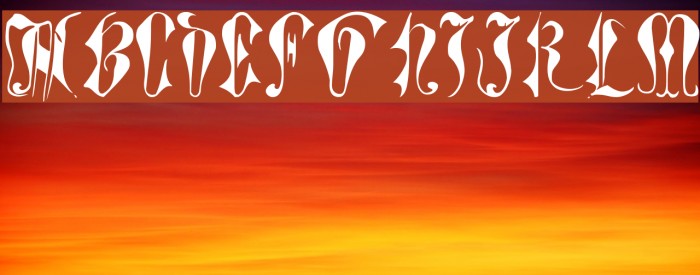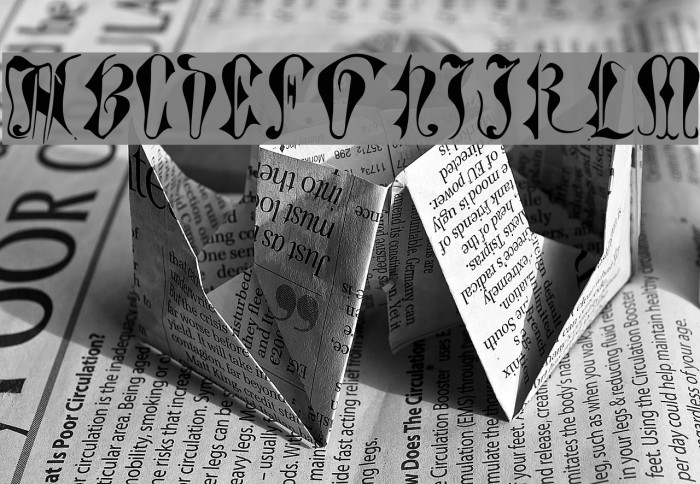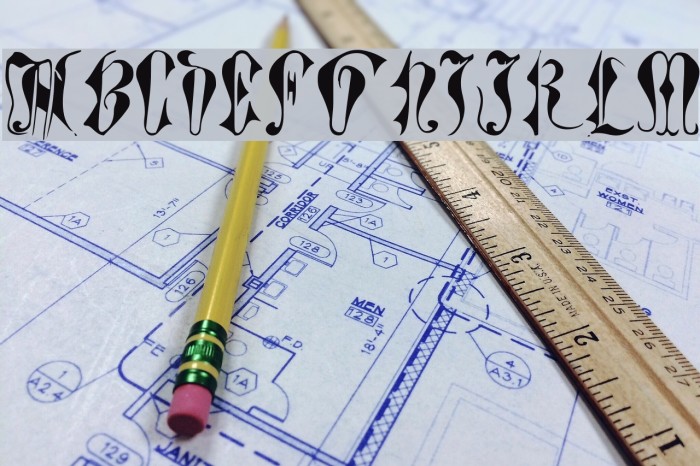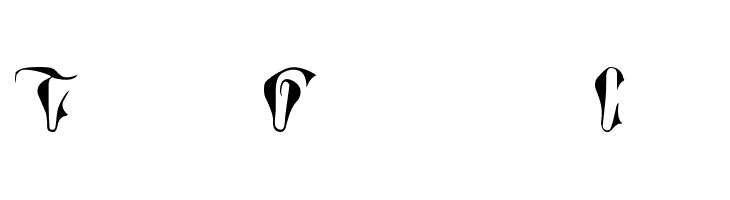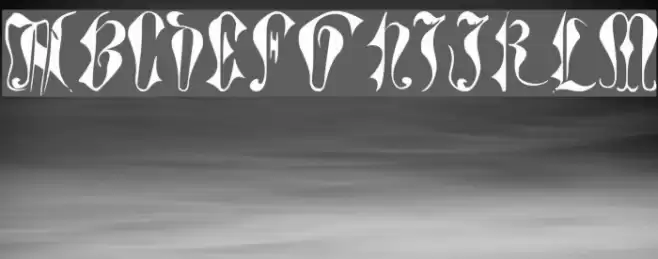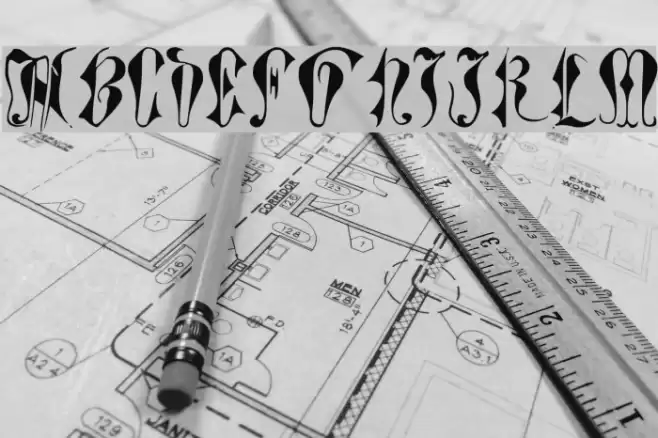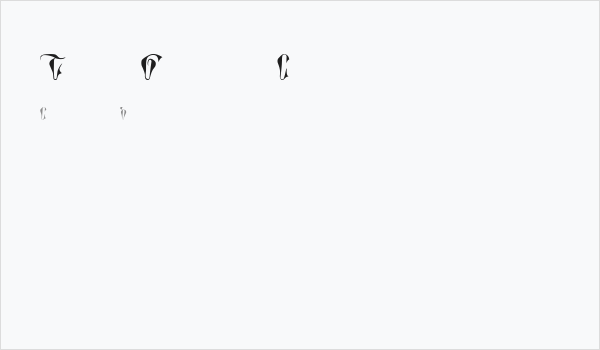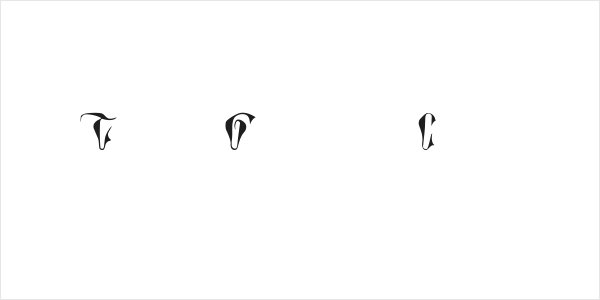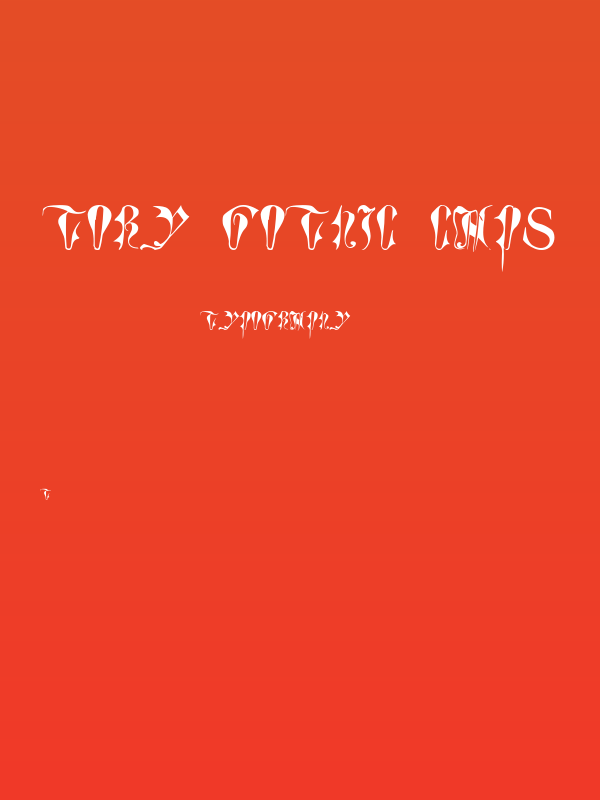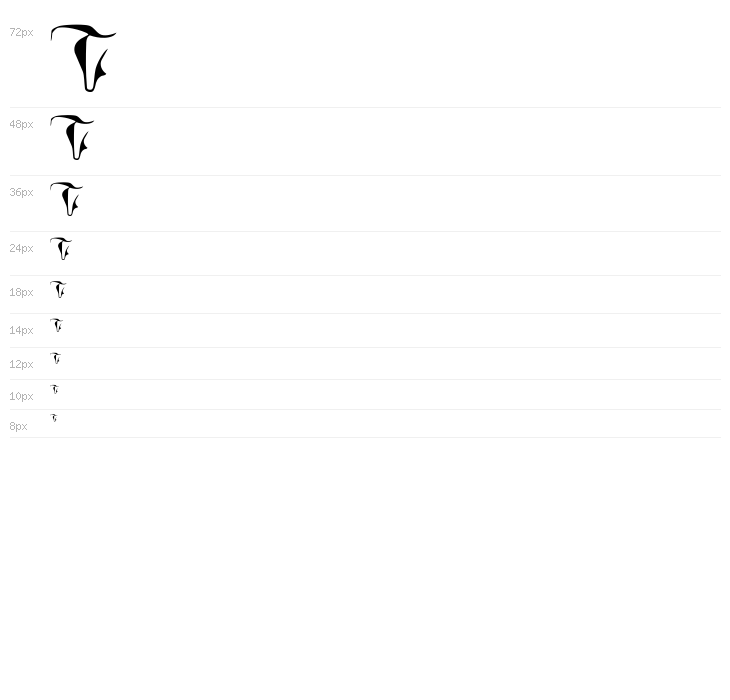
Tory Gothic Caps Font
This font features a highly decorative and intricate design, reminiscent of traditional Gothic script. Each letter is crafted with elaborate flourishes and sharp, angular lines, creating a dramatic and bold appearance. The characters are ornate, with a strong emphasis on vertical strokes and pointed serifs, giving them a medieval and historical feel. The overall aesthetic is both elegant and imposing, making it suitable for projects that require a touch of grandeur and sophistication.
A decorative Gothic-style font with intricate, bold designs and sharp serifs.
- Proposed Projects: Ideal for use in historical or fantasy-themed projects, such as book covers, posters, or invitations that require a dramatic and elegant touch.
- Category: Blackletter
- Overall Style: Vintage